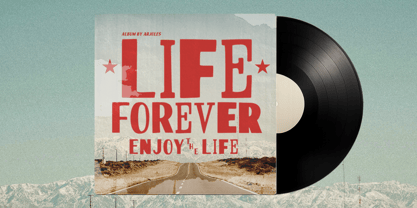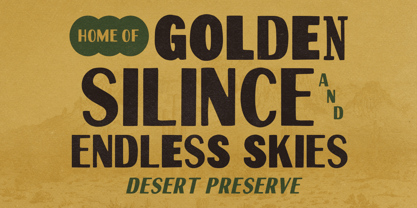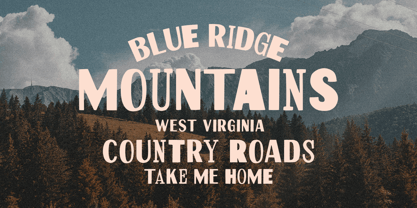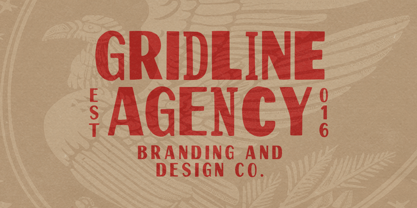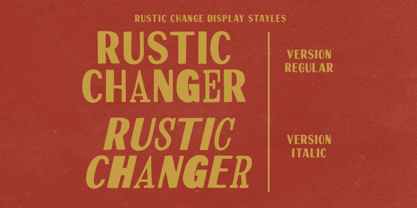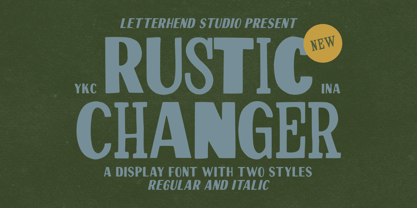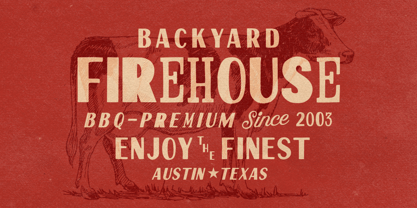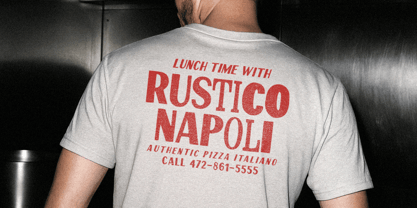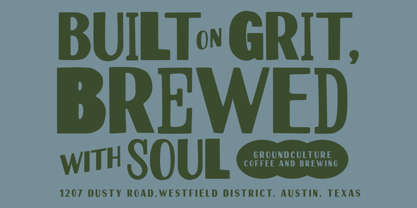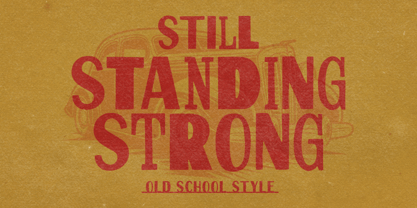
Rustic Changer
von Letterhend
Die Schriftfamilie Rustic Changer wurde von Hendry Juanda entworfen und von Letterhend veröffentlicht. Rustic Changer enthält 2 Stile und Familienpaketoptionen. Mehr über diese Familie
Rustic Changer a western display font, like old countryside signage painted by hand but refined for modern use. The letterforms are chunky, tall, and slightly quirky, giving strong readability while keeping a warm, handmade character. It’s good for smoothly for headlines, packaging, posters, menus, signage, and branding that wants to feel grounded, honest, and timeless. Features : Uppercase & lowercase Numbers and punctuation Alternates & Ligatures Multilingual Support PUA encoded